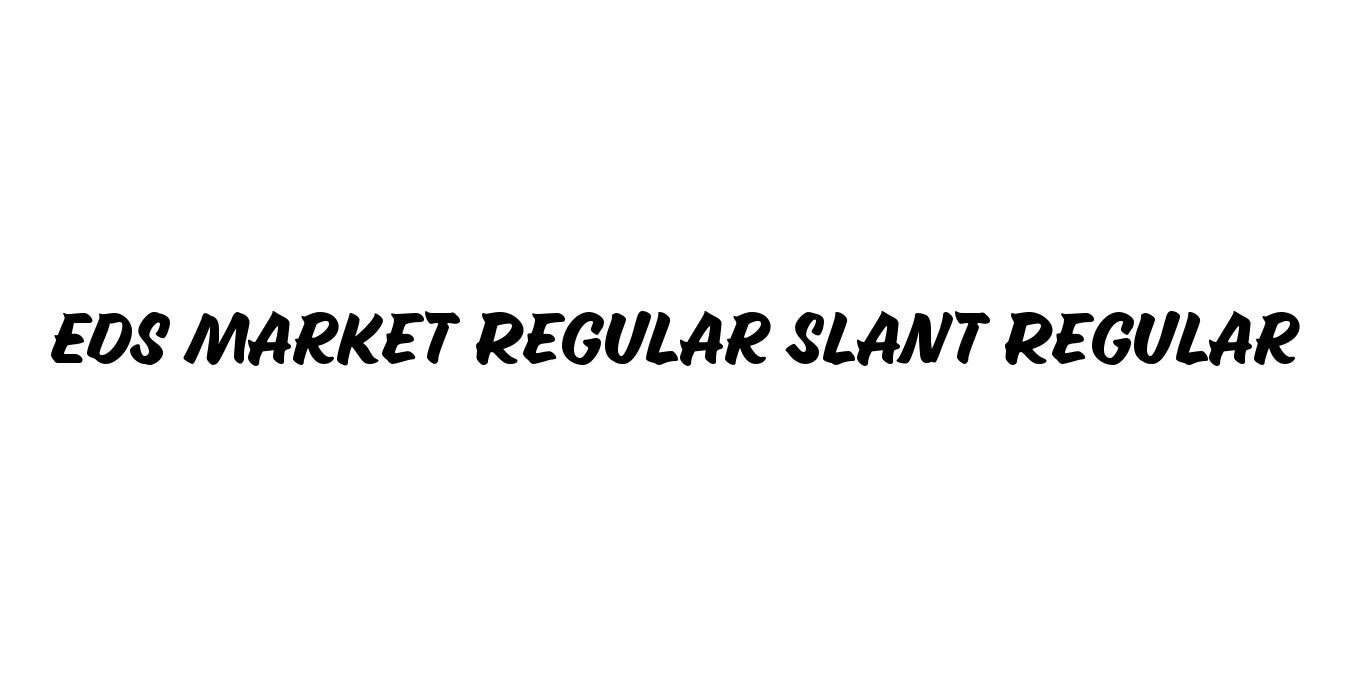
Eds Market Regular Slant Regular
Designed by Laura Worthington
| Category | Script / Hand-lettered |
Eds Market Regular Slant Regular is a charming, hand-lettered typeface designed by the renowned Laura Worthington. Inspired by the classic, hand-painted aesthetic of mid-century grocery store signage and 20th-century commercial art, this font captures a sense of nostalgia and artisan craftsmanship. Its upright, slightly slanted stance provides a rhythmic flow that mimics authentic brush calligraphy, making it an excellent choice for designs that require a warm, human touch without sacrificing legibility.
The Regular Slant variant specifically balances the casual nature of a handwritten script with a structured geometry that ensures versatility across various media. Whether used for branding, packaging, or editorial layouts, Eds Market stands out for its extensive character set and fluid connections. It evokes the spirit of vintage advertising, offering a timeless appeal for modern designers seeking to replicate the soulful look of traditional sign-painting techniques.
Eds Market Regular Slant Regular Best Uses
Perfect for creating organic, artisanal brand identities and logos.
Ideal for food and beverage labels that want a farm-to-table or handmade feel.
Great for vintage-themed posters and social media graphics aiming for a retro vibe.
Works well for menu boards and window displays in boutiques or cafes.